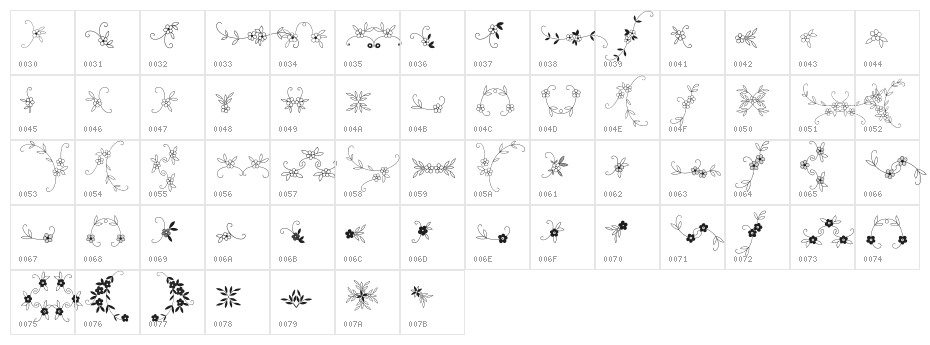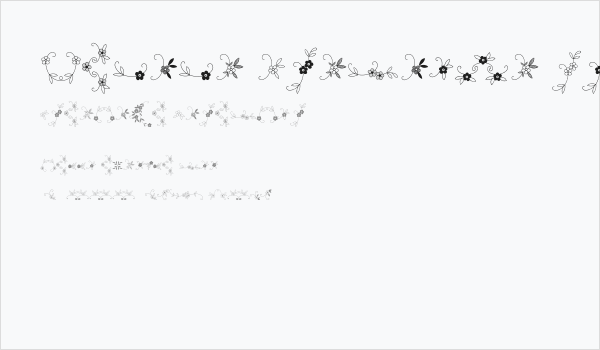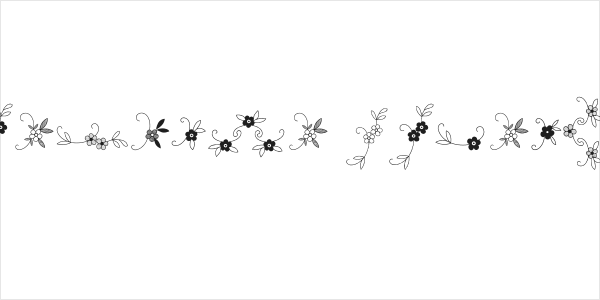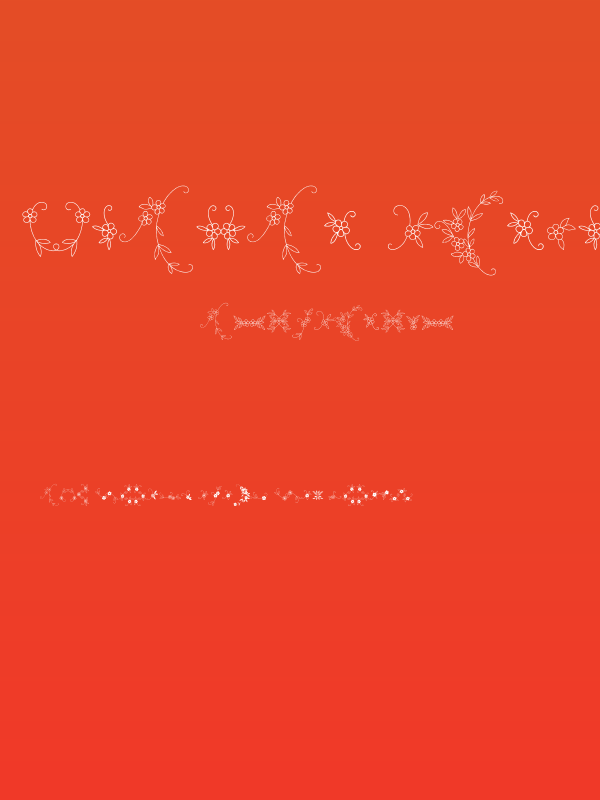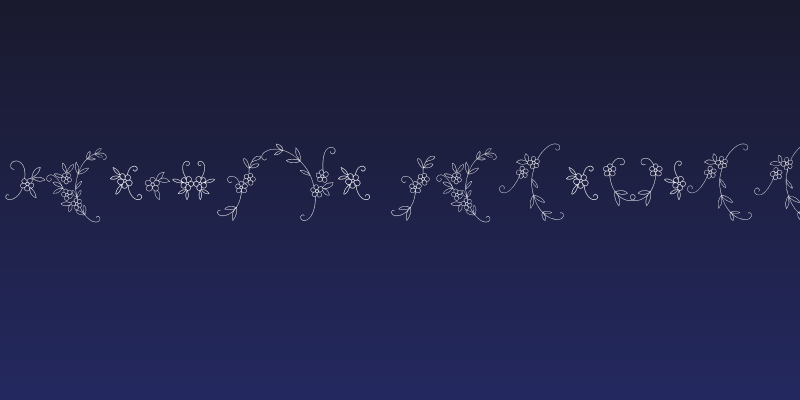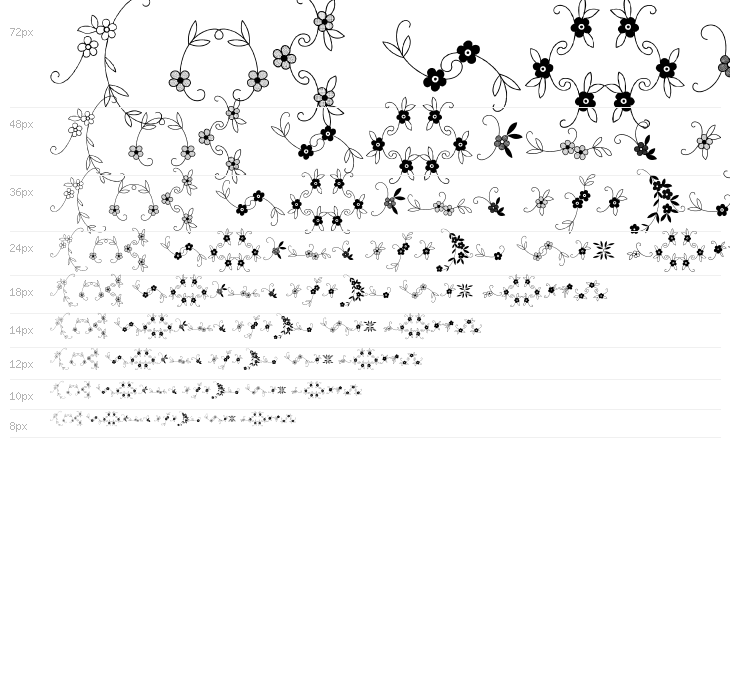
Menina Graciosa Ornaments Two Font
Menina Graciosa Ornaments Two Description
This design features a series of intricate floral and ornamental patterns, each line showcasing a unique arrangement of flowers, leaves, and swirling vines. The elements are delicately crafted, with a mix of solid and outlined shapes, creating a harmonious balance between light and dark areas. The designs are whimsical and elegant, with a hand-drawn feel that adds a touch of charm and sophistication. These ornaments can be used to enhance various creative projects, offering a decorative flair that is both timeless and versatile.
| Use Case | Decorative elements |
| Proposed Projects | Ideal for wedding invitations, greeting cards, decorative borders, and scrapbooking. |